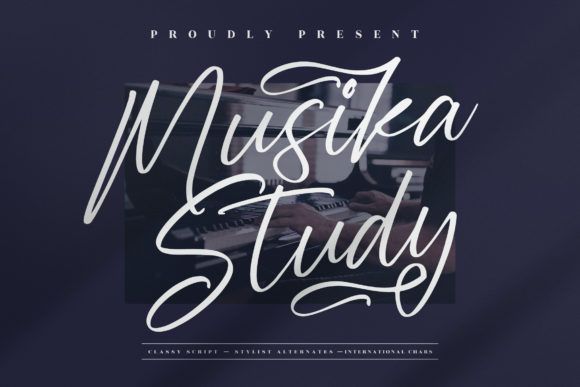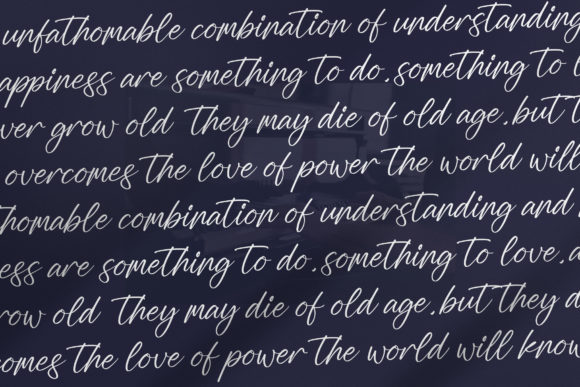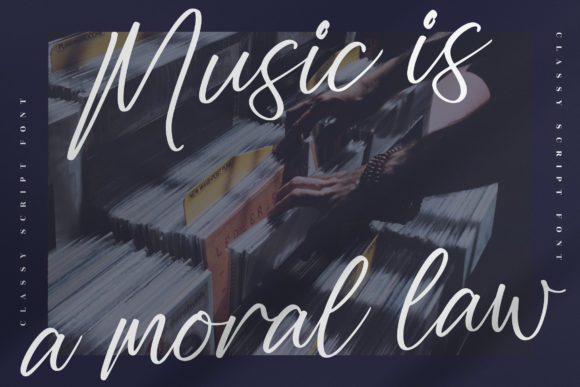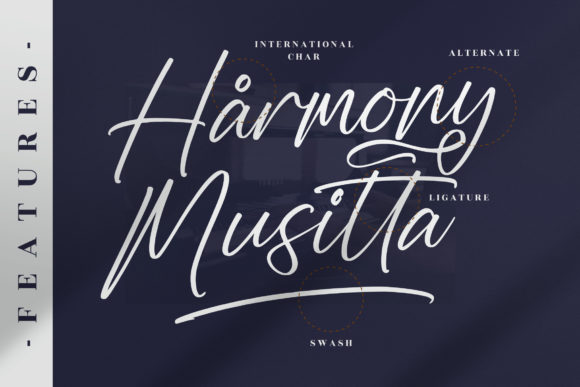
About Musika Study Font
Musika Study is a relaxed script font. It is suitable for any projects such as: logos, branding projects, homeware designs, product packaging, mugs, quotes, posters, and all your other lovely projects that need a beautiful script taste. This font is PUA encoded which means you can access all of the glyphs and swashes with ease!